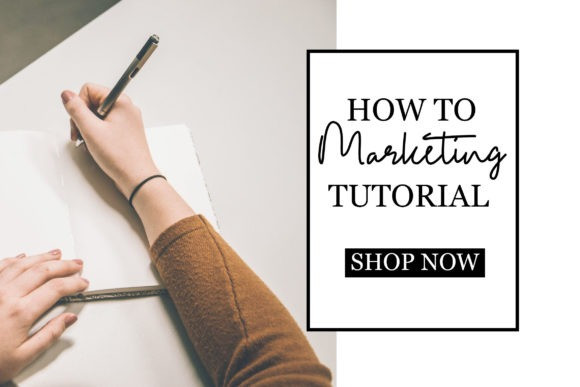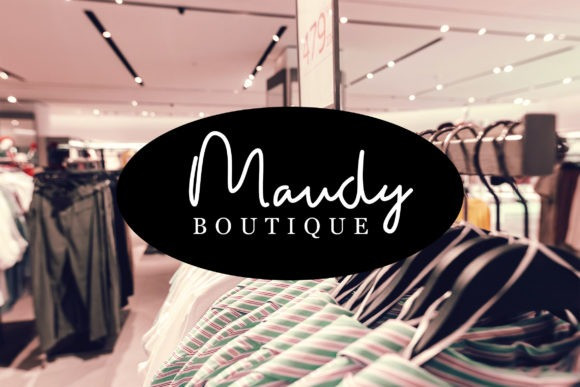
Hastafloris Font
Hastafloris Script Font is a Casual Script font. With bold contrast stroke, slanted and fun character with a some of natural ligatures and lowercase alternates. To give you an extra creative work. Hastafloris font support multilingual more than 100+ language. This font is good for logo design, Social media, Movie Titles, Books Titles, a short text even a long text letter and good for your secondary text font with sans or serif. Make a stunning work with Hastafloris font.